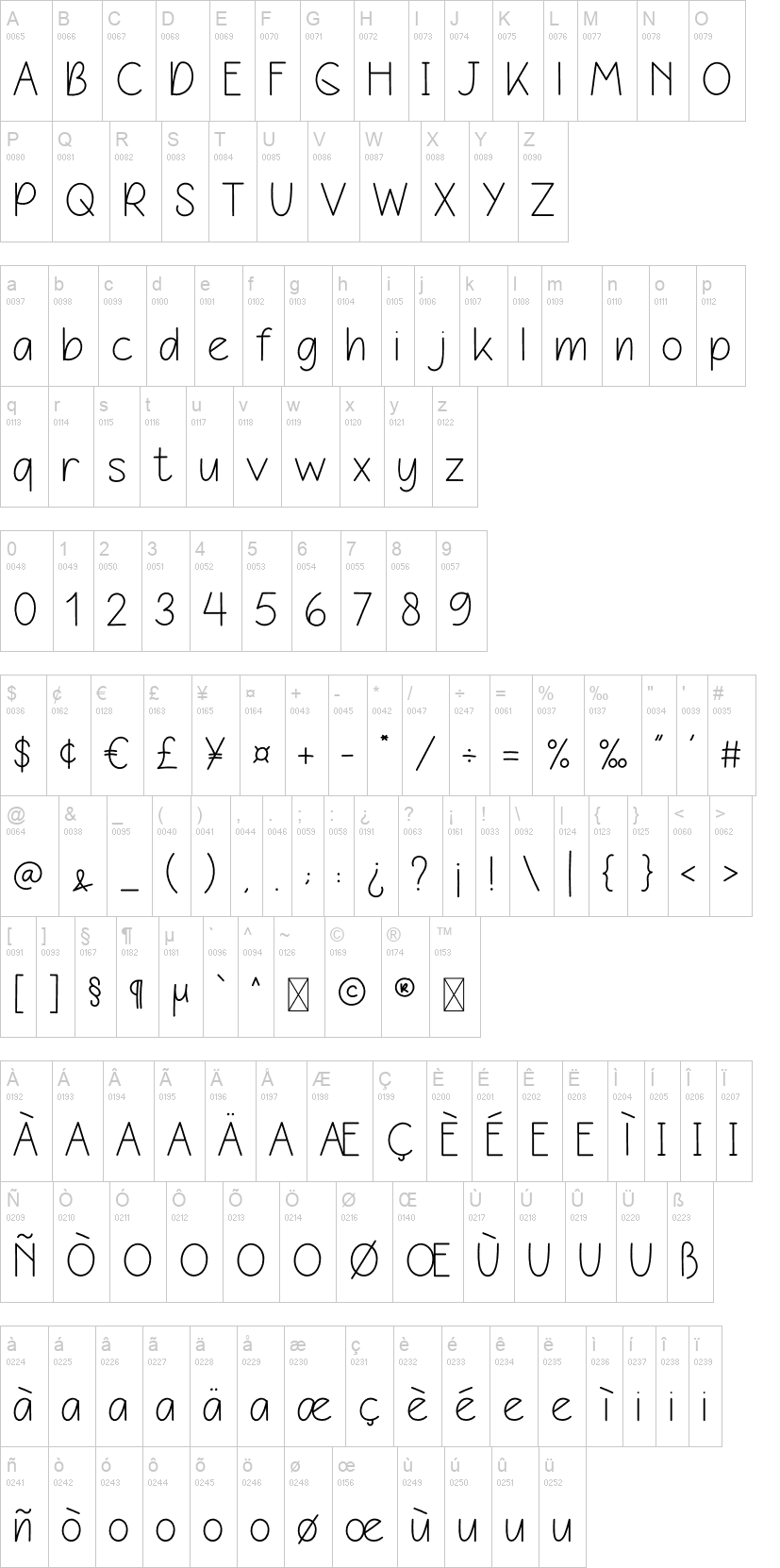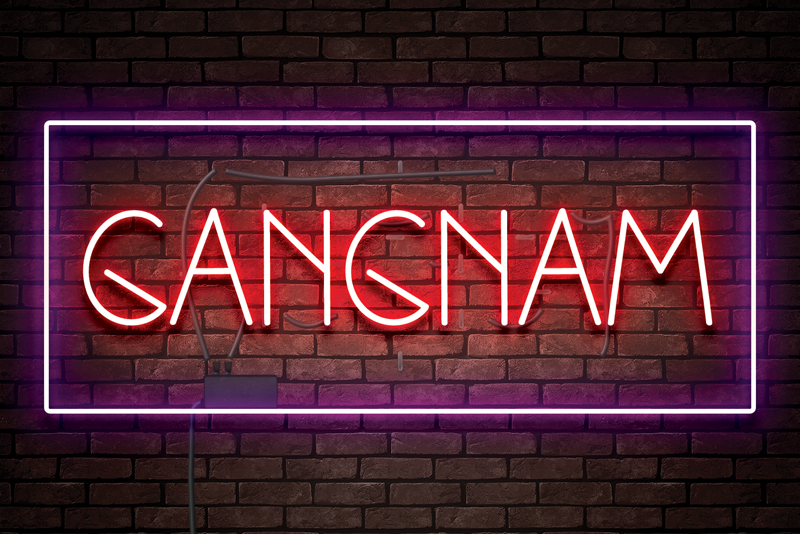
Note of the authorGangnam is a thin and tall sans serif font. It can easily be matched to various projects, so add it to your most creative ideas and notice how it makes them stand out and come alive!